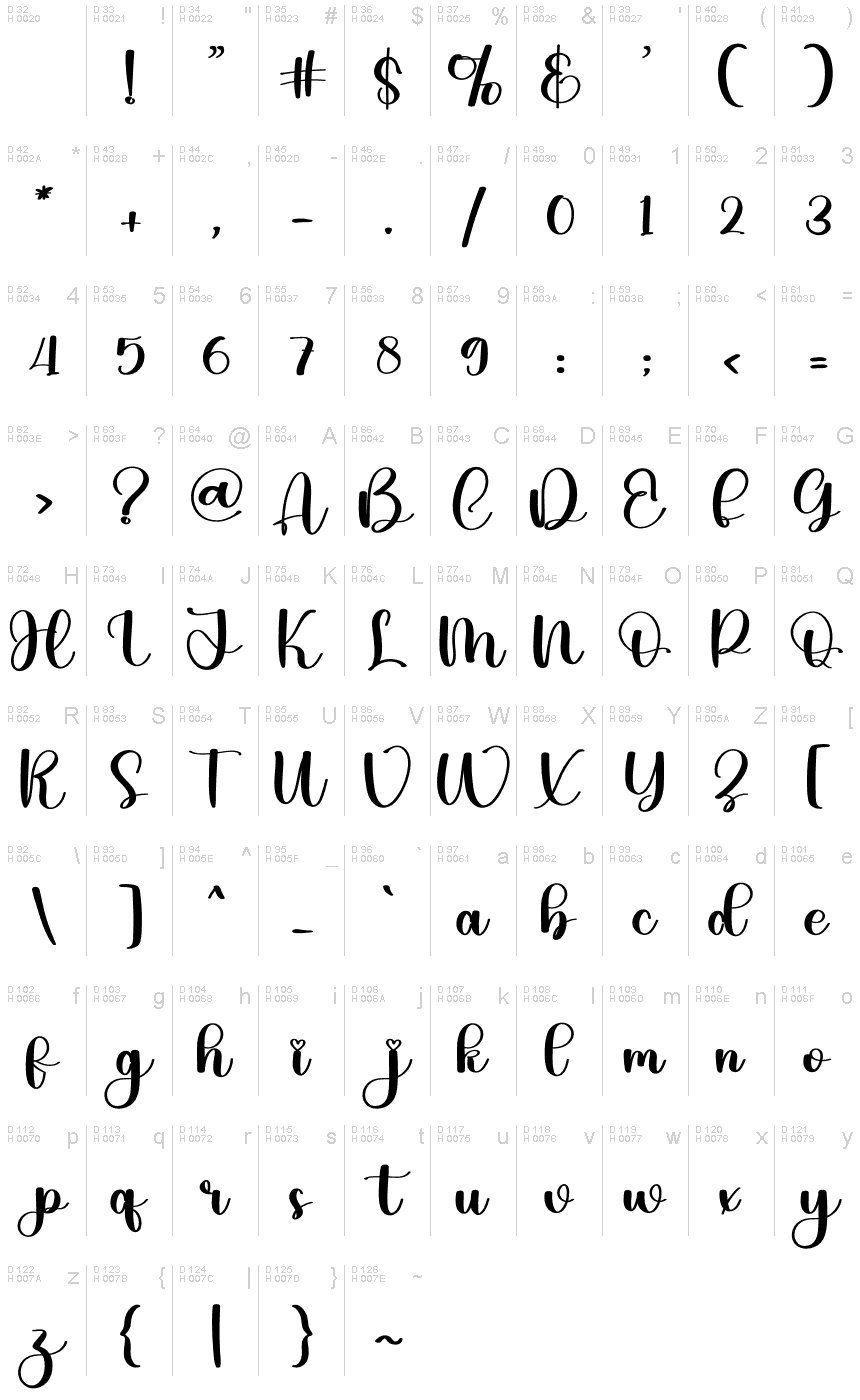
Mail
Mail, a charming calligraphy font crafted by Inermedia Studio, captures the essence of elegance and sophistication.
With its graceful curves and flowing strokes, this lovely typeface lends itself perfectly to wedding invitations, love letters, and romantic branding projects. Its delicate yet confident nature adds a touch of refinement to any design. Whether you're creating a logo for a high-end boutique or designing stationery for a luxury event planner, Mail is the ideal choice to evoke feelings of romance and beauty.
Let your creativity flourish with this exquisite font.
With its graceful curves and flowing strokes, this lovely typeface lends itself perfectly to wedding invitations, love letters, and romantic branding projects. Its delicate yet confident nature adds a touch of refinement to any design. Whether you're creating a logo for a high-end boutique or designing stationery for a luxury event planner, Mail is the ideal choice to evoke feelings of romance and beauty.
Let your creativity flourish with this exquisite font.